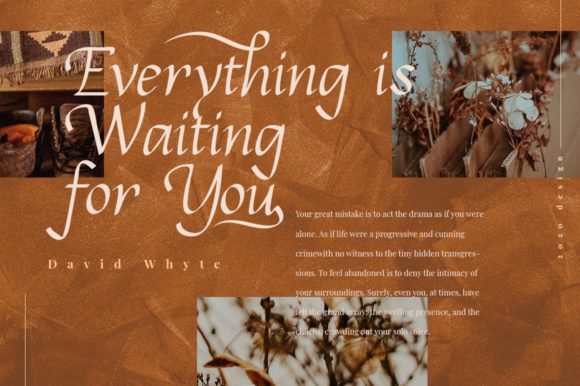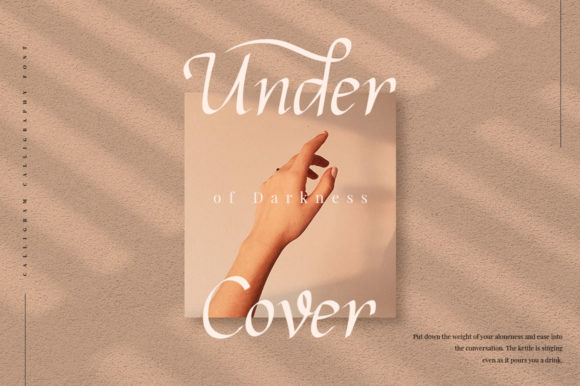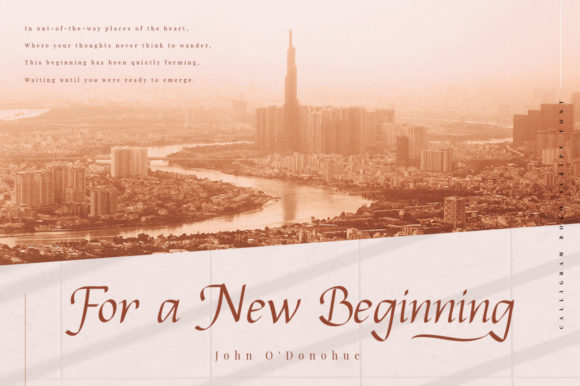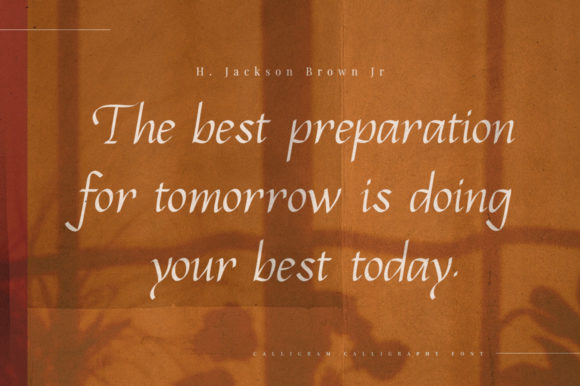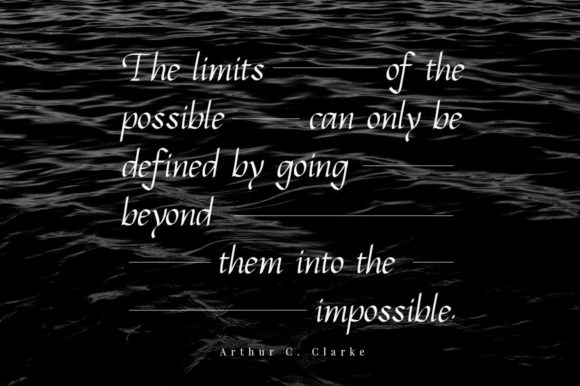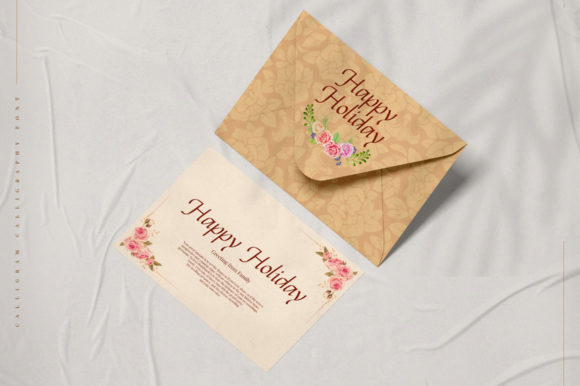
Introducing the Elegance of Calligram Font: Elevate Your Designs with Personal Charm
In the realm of design, fonts play a pivotal role in conveying messages, evoking emotions, and creating lasting impressions. Among the myriad of fonts available, the Calligram Font stands out for its unique, stylish calligraphy style. This font is not just a typographic choice; it’s an artistic statement that can transform your designs, adding a touch of personal charm and sophistication. Whether you’re a professional designer, a crafty DIY enthusiast, or a business owner looking to brand your products, the Calligram Font is a versatile tool that can elevate your work to new heights.
What is Calligram Font?
The Calligram Font is an exquisite, handcrafted calligraphy font designed to bring a sense of elegance and personality to various design projects. Its fluid strokes, intricate details, and stylish flair make it perfect for projects that demand a touch of sophistication and charm. Unlike standard fonts, the Calligram Font offers a distinctive look that can set your designs apart from the crowd, making them more memorable and engaging.
Versatile Applications of Calligram Font
One of the key benefits of the Calligram Font is its versatility. It’s suitable for a wide range of applications, including:
- Photography: Add a professional touch to your photo watermarks or captions, making your images stand out.
- Social Media Posts: Elevate your social media content with stylish text overlays that grab attention.
- Advertisements: Create compelling ads with a font that exudes elegance and sophistication.
- Logos & Branding: Develop a unique brand identity with a custom logo that reflects your brand’s personality.
- Invitations: Design beautiful, personalized invitations for weddings, parties, or corporate events.
- Product Designs: Enhance your product labels, packaging, or promotional materials with a touch of class.
- Labels and Stationery: Create custom labels, notebooks, or stationery sets that showcase your personal style.
- Wedding Designs: From wedding invitations to decorations, this font can add a romantic, elegant feel to your designs.
- Product Packaging: Stand out in the market with packaging that features beautiful, handcrafted typography.
- Special Events: Whether it’s a birthday party, a corporate event, or a fashion show, the Calligram Font can help create memorable promotional materials.
Why Choose Calligram Font?
Choosing the Calligram Font for your design projects comes with several advantages:
- Unique Style: Its distinctive calligraphy style ensures your designs are one-of-a-kind.
- High Readability: Despite its artistic nature, the font maintains high readability, making it suitable for both headings and body text.
- Emotional Connection: The elegant and personal feel of the font can help create an emotional connection with your audience.
- Time-Saving: With its comprehensive set of characters and styles, you can complete your designs quickly without compromising on quality.
Tips for Using Calligram Font Effectively
To maximize the impact of the Calligram Font in your designs, consider the following tips:
- Combine with Simplicity: Pair the font with simpler design elements to avoid overwhelming your audience.
- Consider Contrast: Ensure there’s sufficient contrast between the text and background to maintain readability.
- Experiment with Colors: While the font itself is stylish, experimenting with different colors can further enhance its beauty.
- Use Sparingly: While beautiful, using the font sparingly can make it more impactful. Use it for key messages or headings.
| Font Name | Calligram Font |
| Author | ibeydesign |
The Calligram Font is more than just a typographic choice; it’s a design element that can transform your projects, adding a layer of elegance, charm, and personality. Whether you’re designing for personal satisfaction, professional projects, or business branding, this font offers a versatile and stylish solution. By incorporating the Calligram Font into your designs, you’re not just adding words; you’re crafting an experience that resonates with your audience. So, unleash your creativity, and let the Calligram Font be the artistic touch that elevates your designs to new heights.